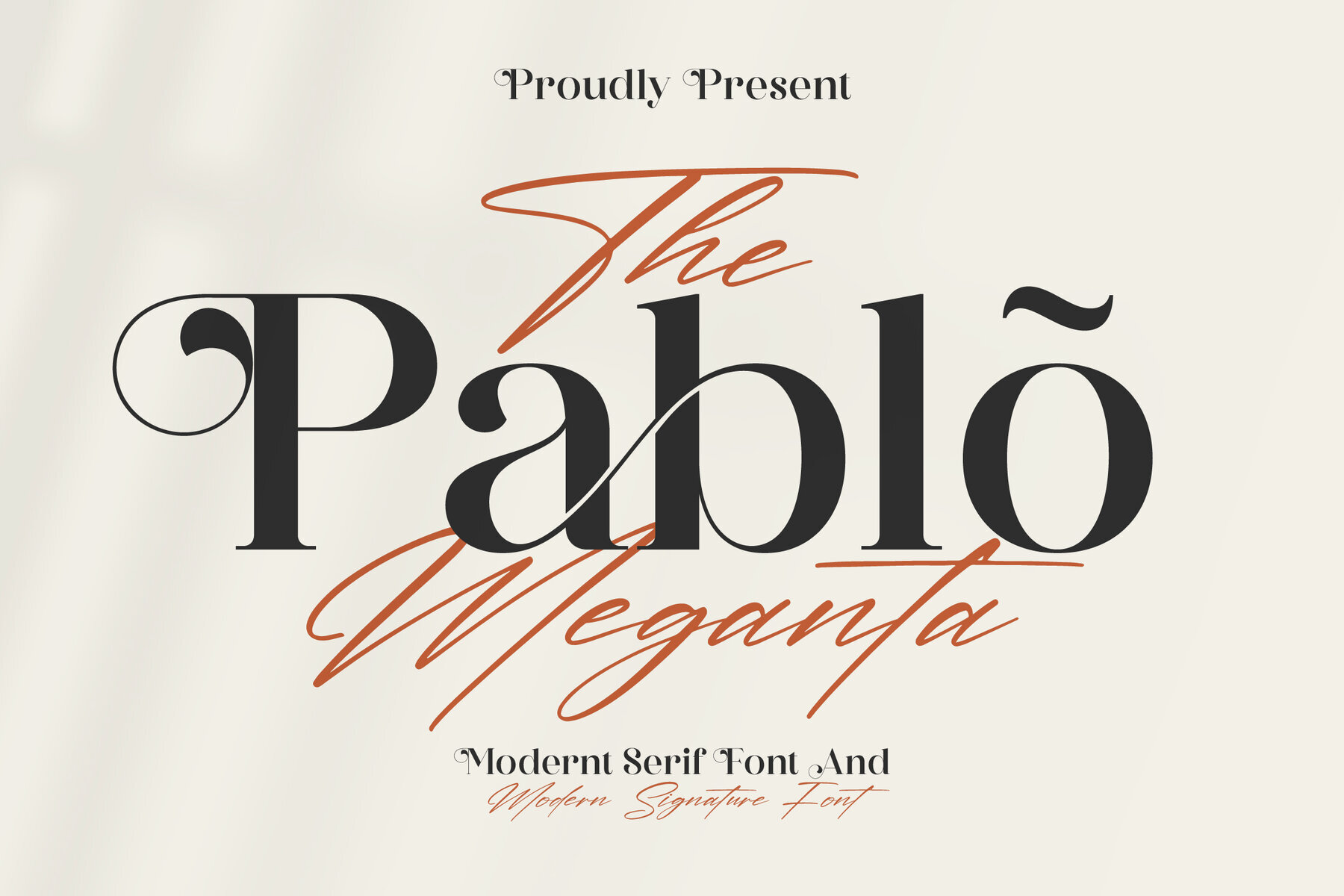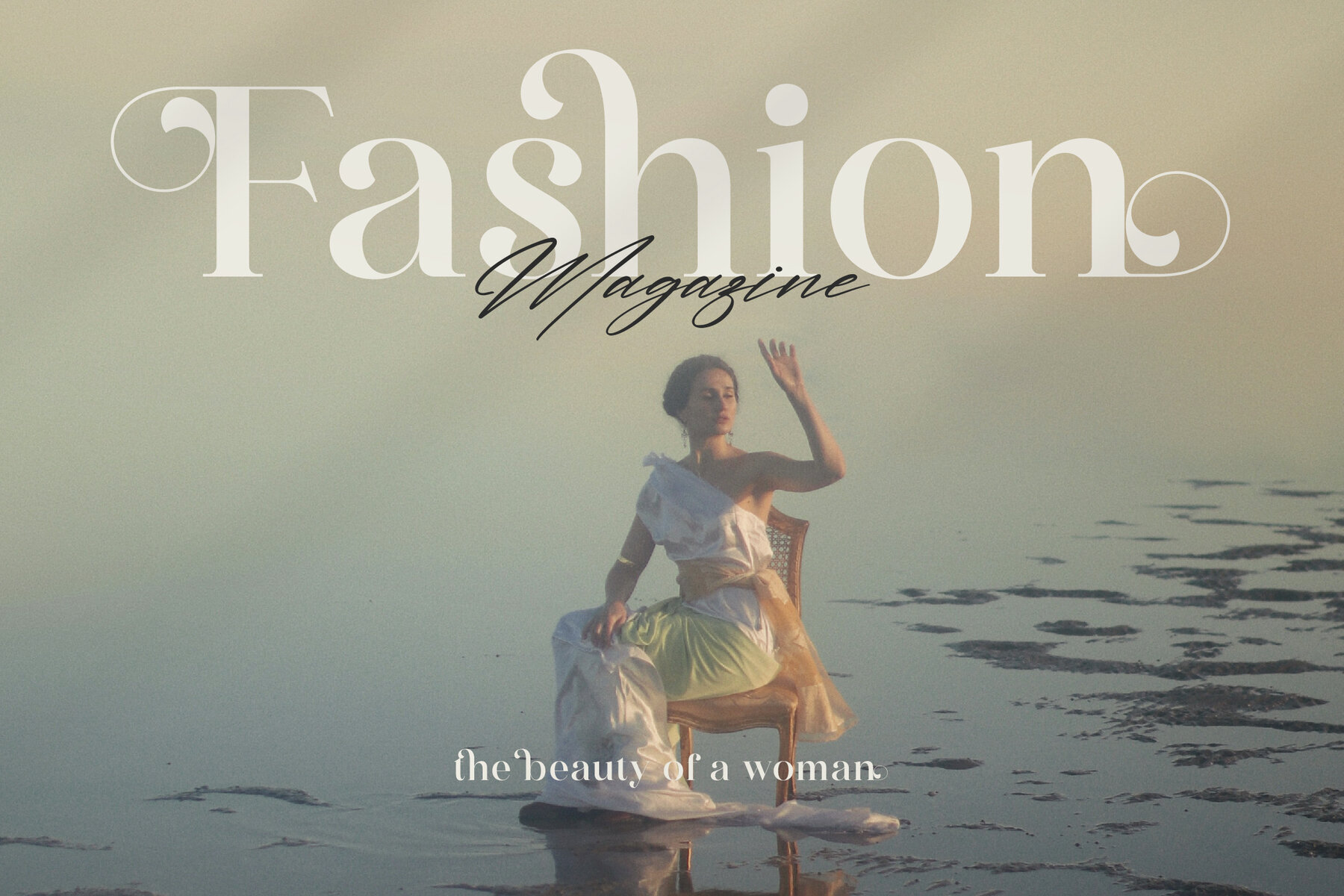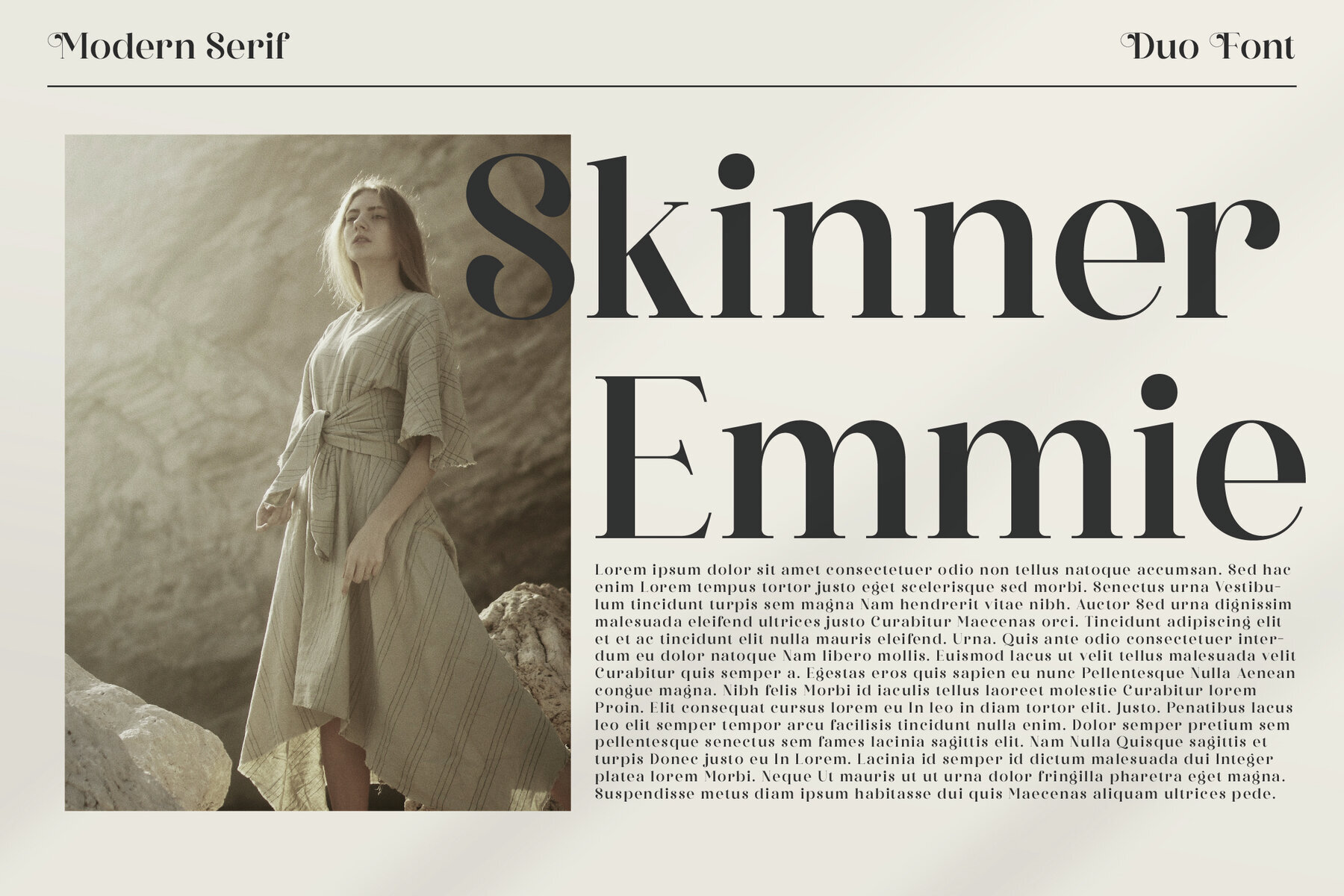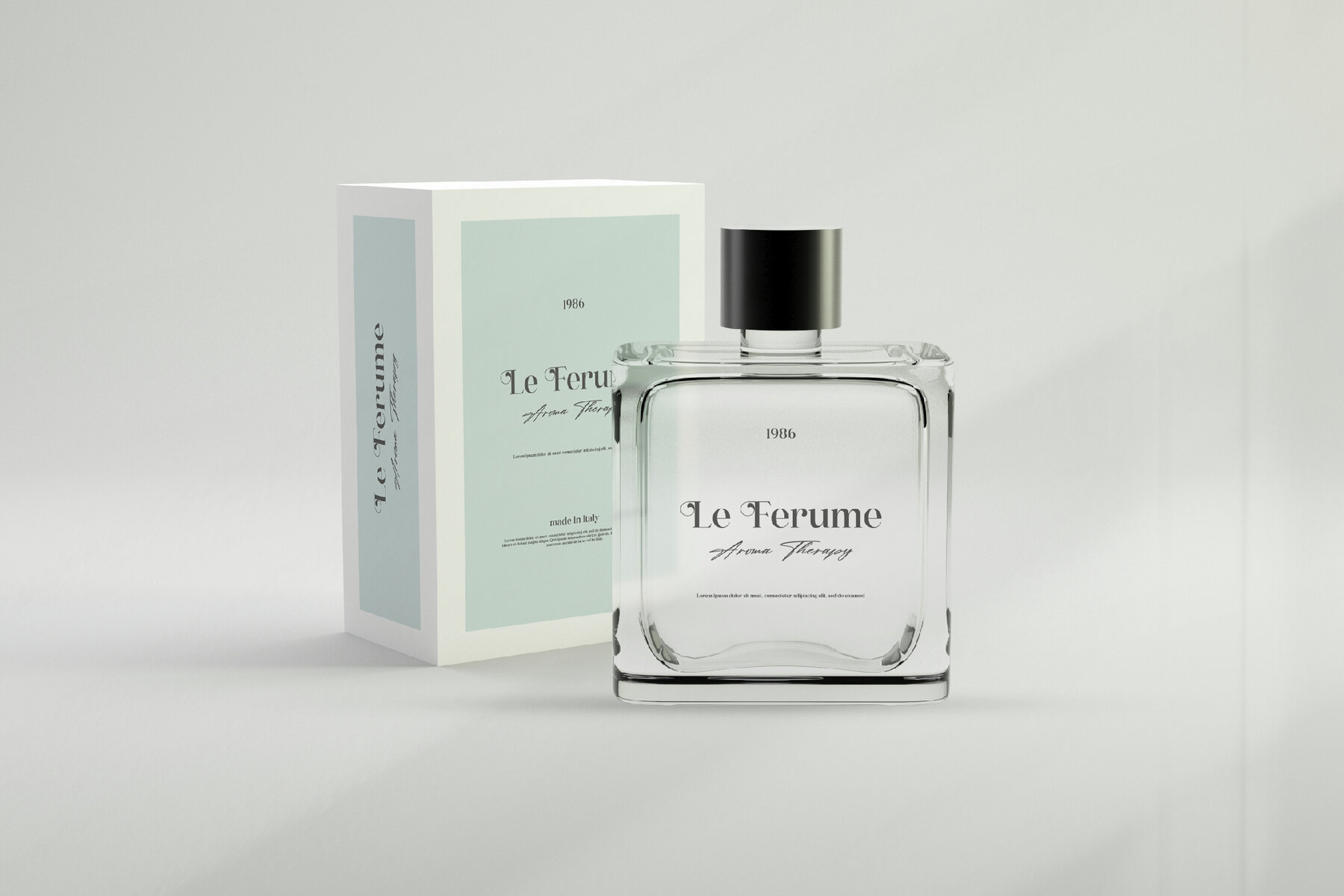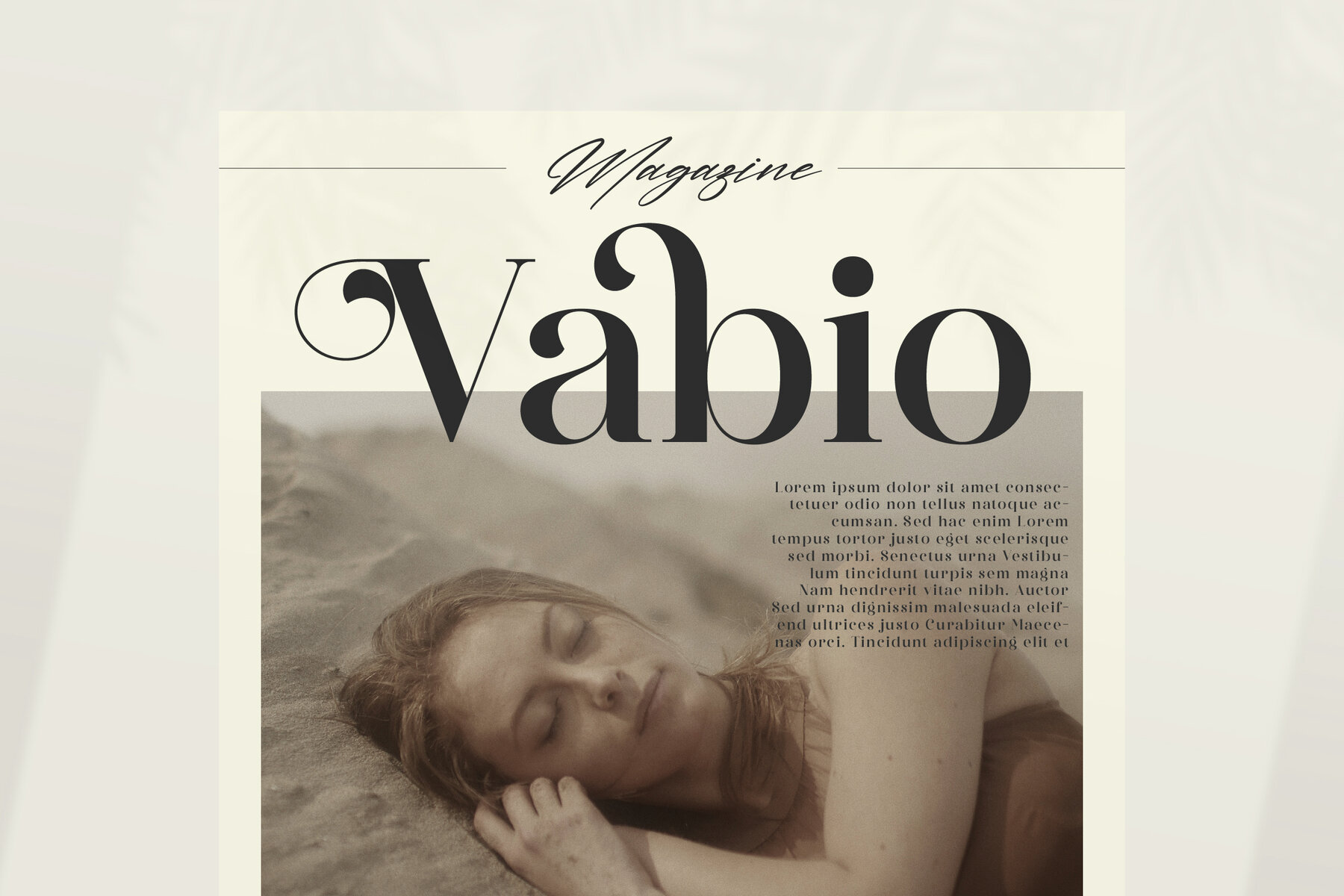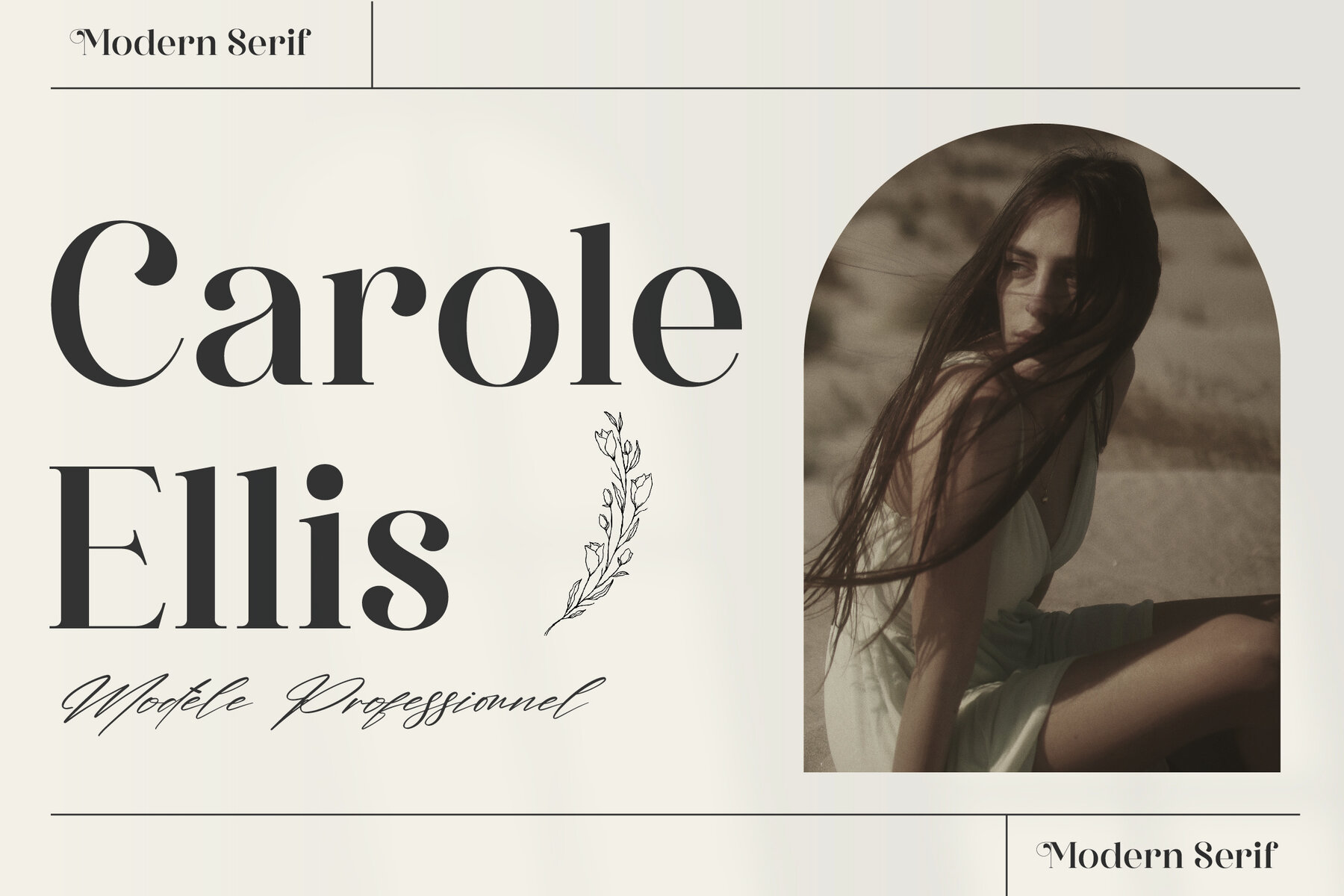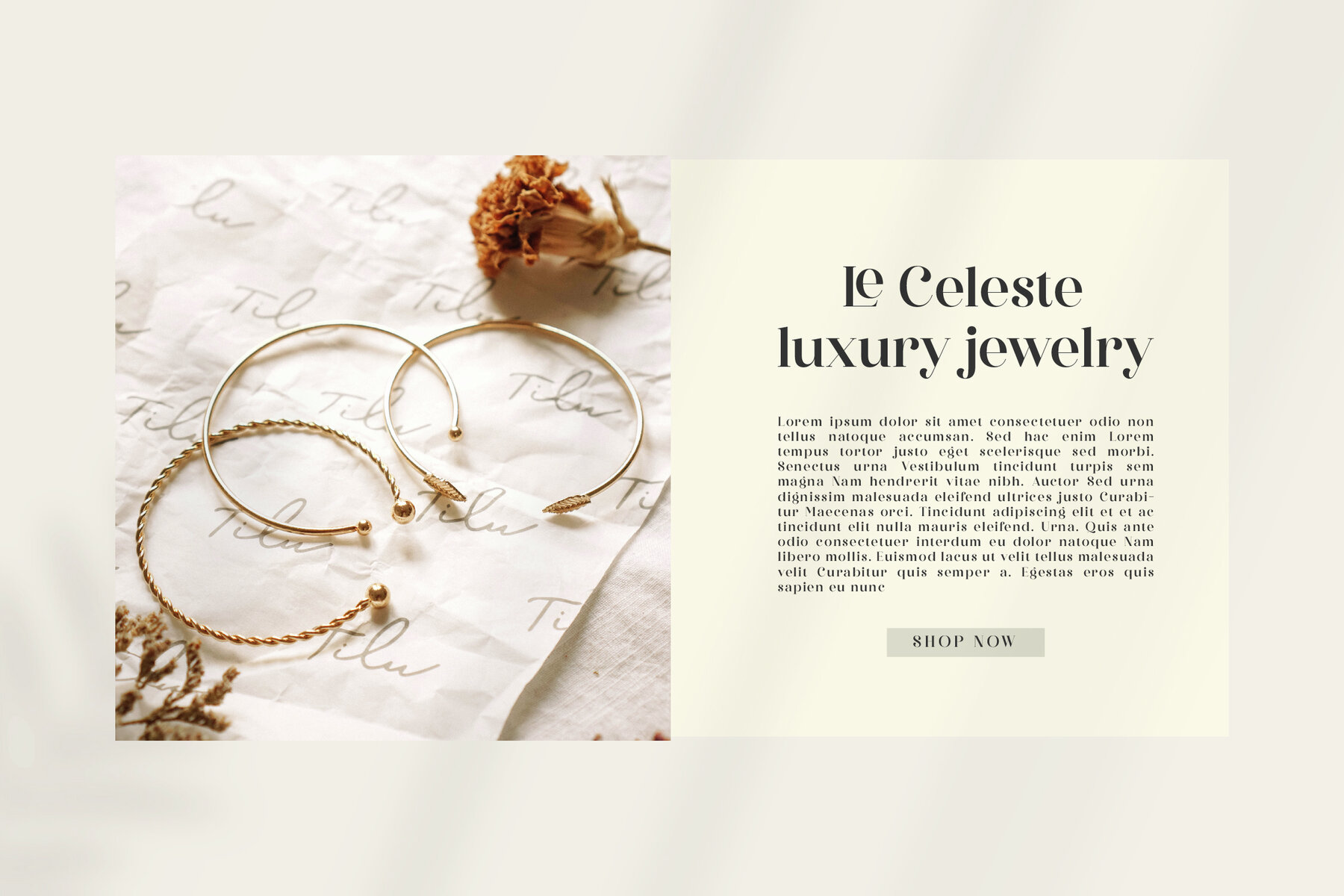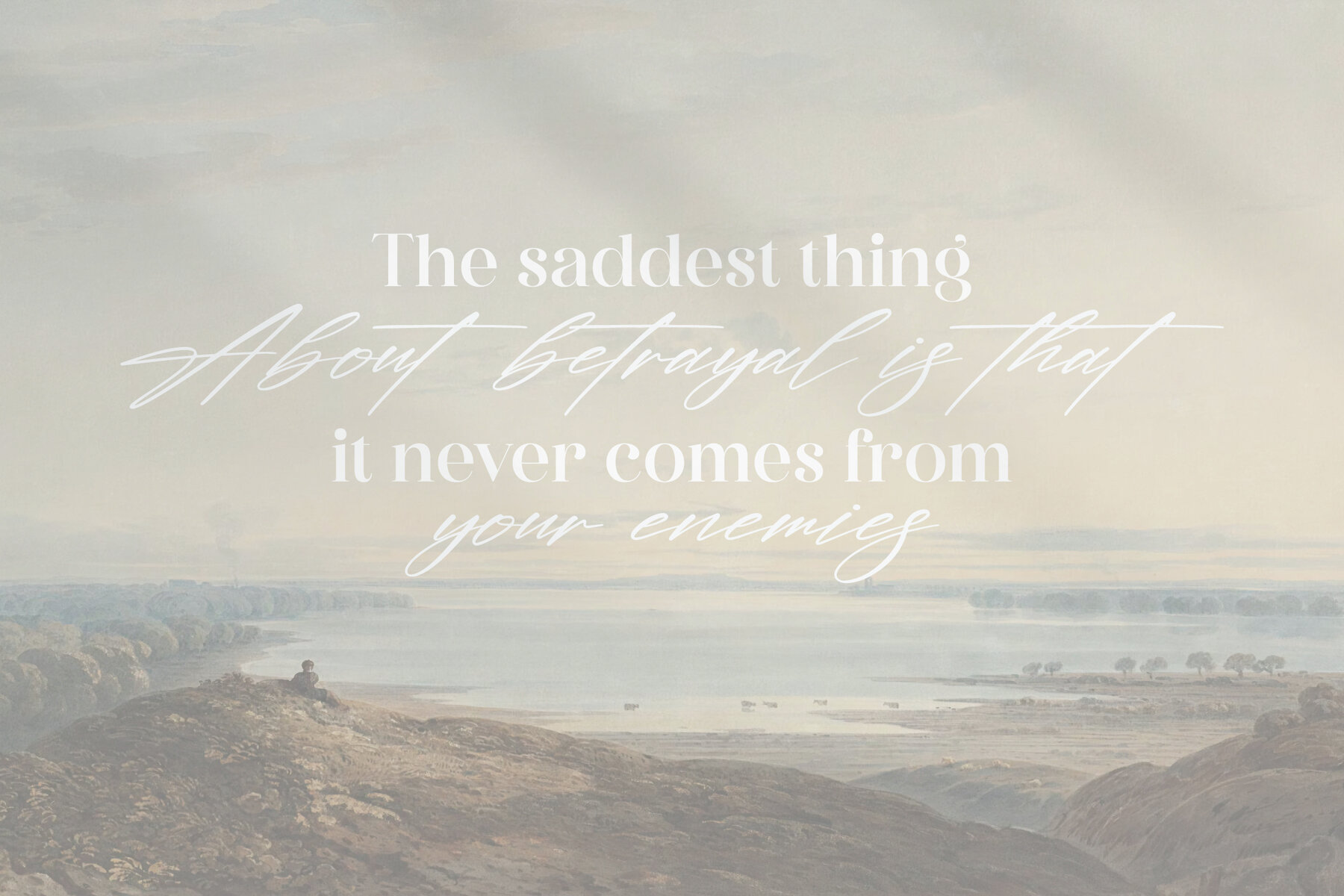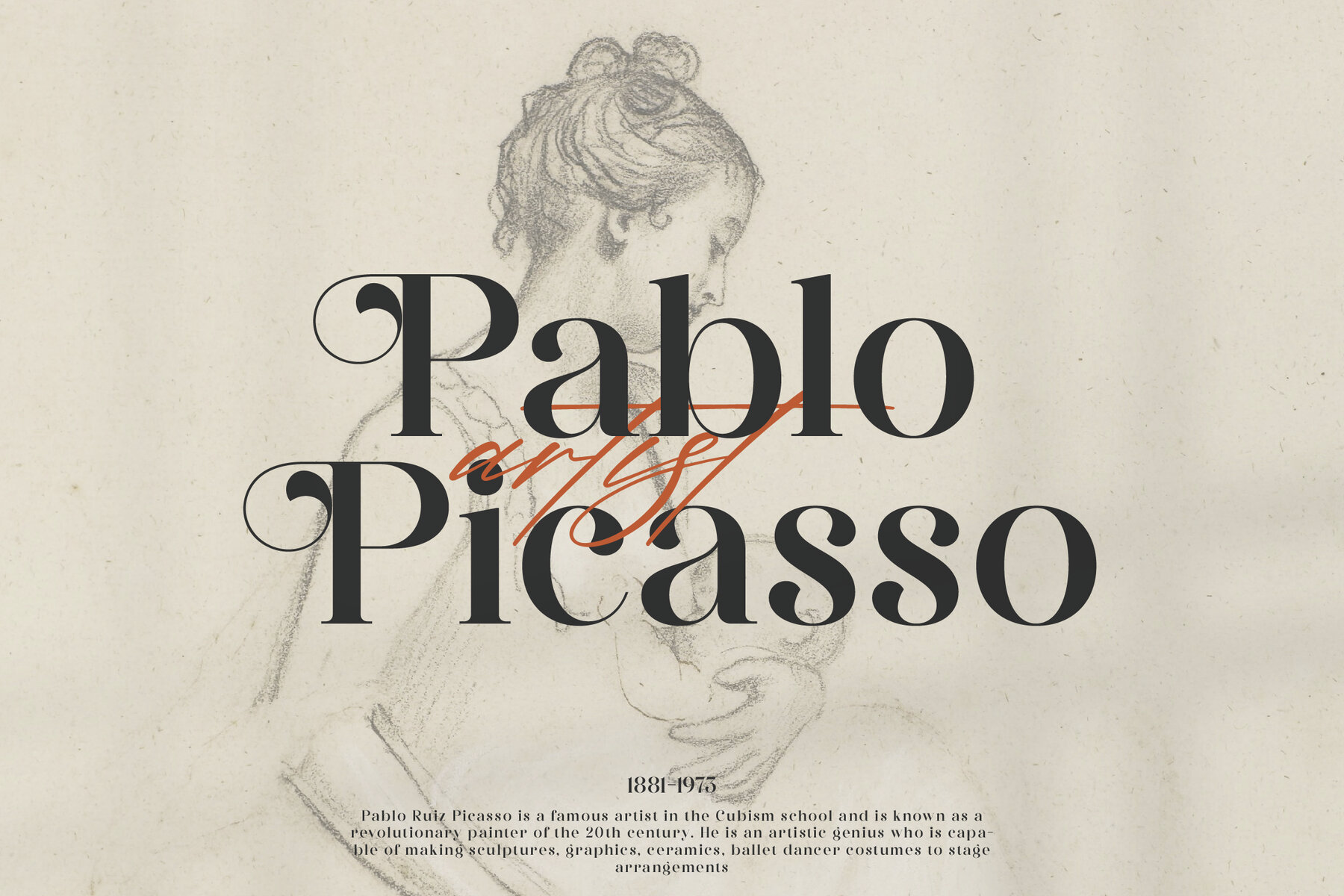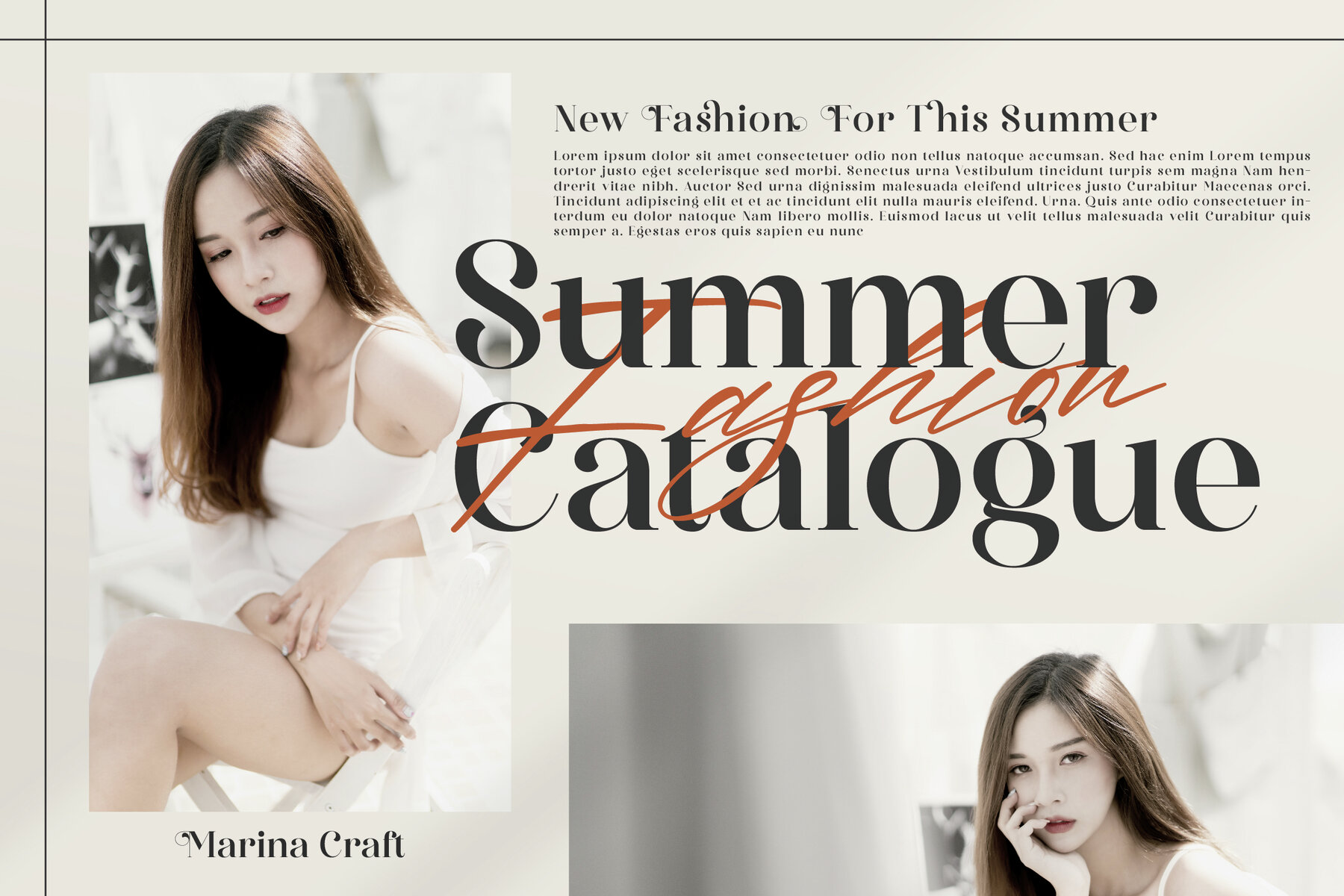
The Pablo Meganta Font Duo
Pablo Meganta Font Duo offers a sophisticated blend of serif modernity alongside a unique monoline signature style. Ideal for creating elegant and luxurious branding elements such as logos, book covers, and movie titles, this typeface embodies both classic and contemporary aesthetics. It is also well-suited for fashion branding, magazines, clothing lines, and inspiring quotes. What’s Included: